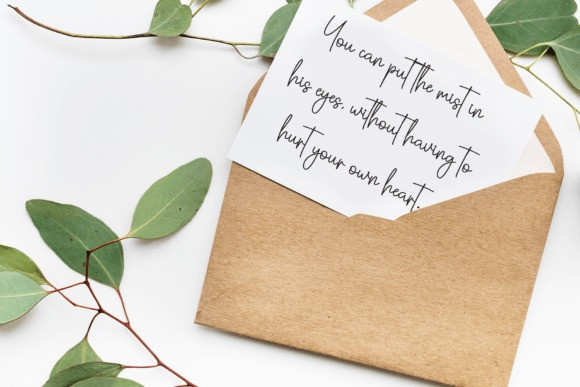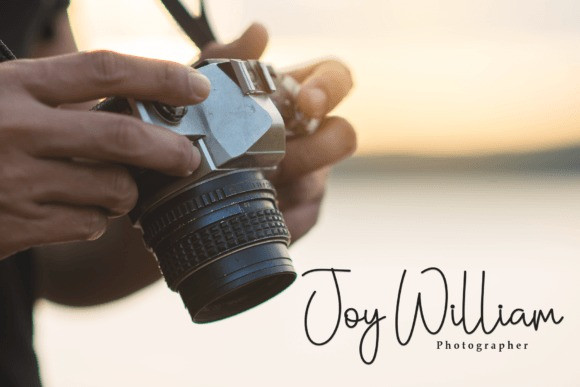
Bookmark Handwritten Font
Bookmark Handwritten Font is a charming handwritten font with a touch of delightful messiness. Its whimsical strokes capture the essence of hand-scripted notes, giving your designs a warm and personal feel. Perfect for adding a casual and creative touch to your projects, Bookmark brings a unique flair to any text with its playful yet readable style.